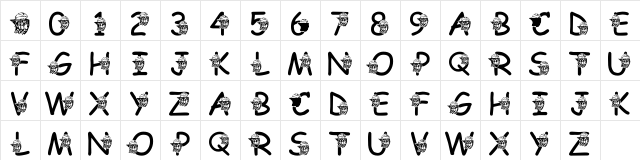
LMS Swoosh Regular
Design Context for LMS Swoosh
LMS Swoosh is a composed and adaptable typeface that performs quietly and consistently across a wide range of design contexts.
Pro Tip: Use LMS Swoosh in both headline and body roles to test its range before committing to a single application.